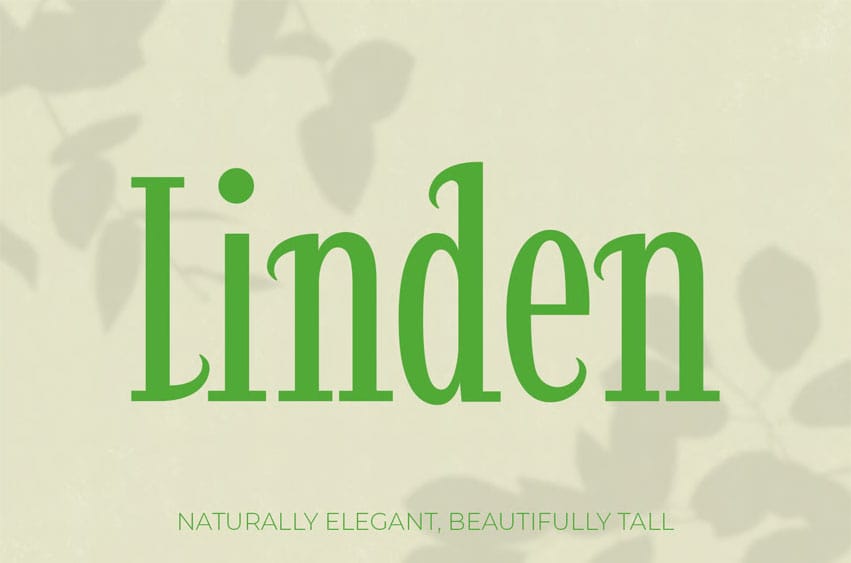
Linden Font is a premium and luxury tall serif font inspired by the timeless beauty of nature. With its elegantly curved serifs and elongated forms, Linden brings a touch of classic sophistication and high-end appeal to any design project.
The delicate balance between its sturdy vertical stems and graceful curves makes this typeface a highly versatile tool for designers seeking an exclusive and premium feel. Whether showcased on high-quality textured print materials, nature conservation campaigns, or eco-friendly branding, Linden maintains its exceptional readability and sophisticated charm. Every headline, logo, and text block crafted with this font is guaranteed to radiate a truly luxury and elegant vibe.
This elegant typeface is the perfect choice for crafting stunning, memorable visual identities. It is beautifully suited for luxury organic branding, premium product packaging, elegant wedding invitations, wellness branding, fine arts editorial design, and classic logo creation. Linden guarantees a professional and striking typographic presence for your next high-end or nature-inspired project.
- Unique letterforms